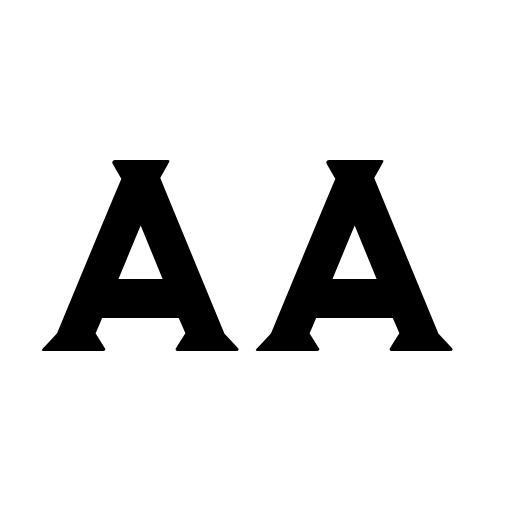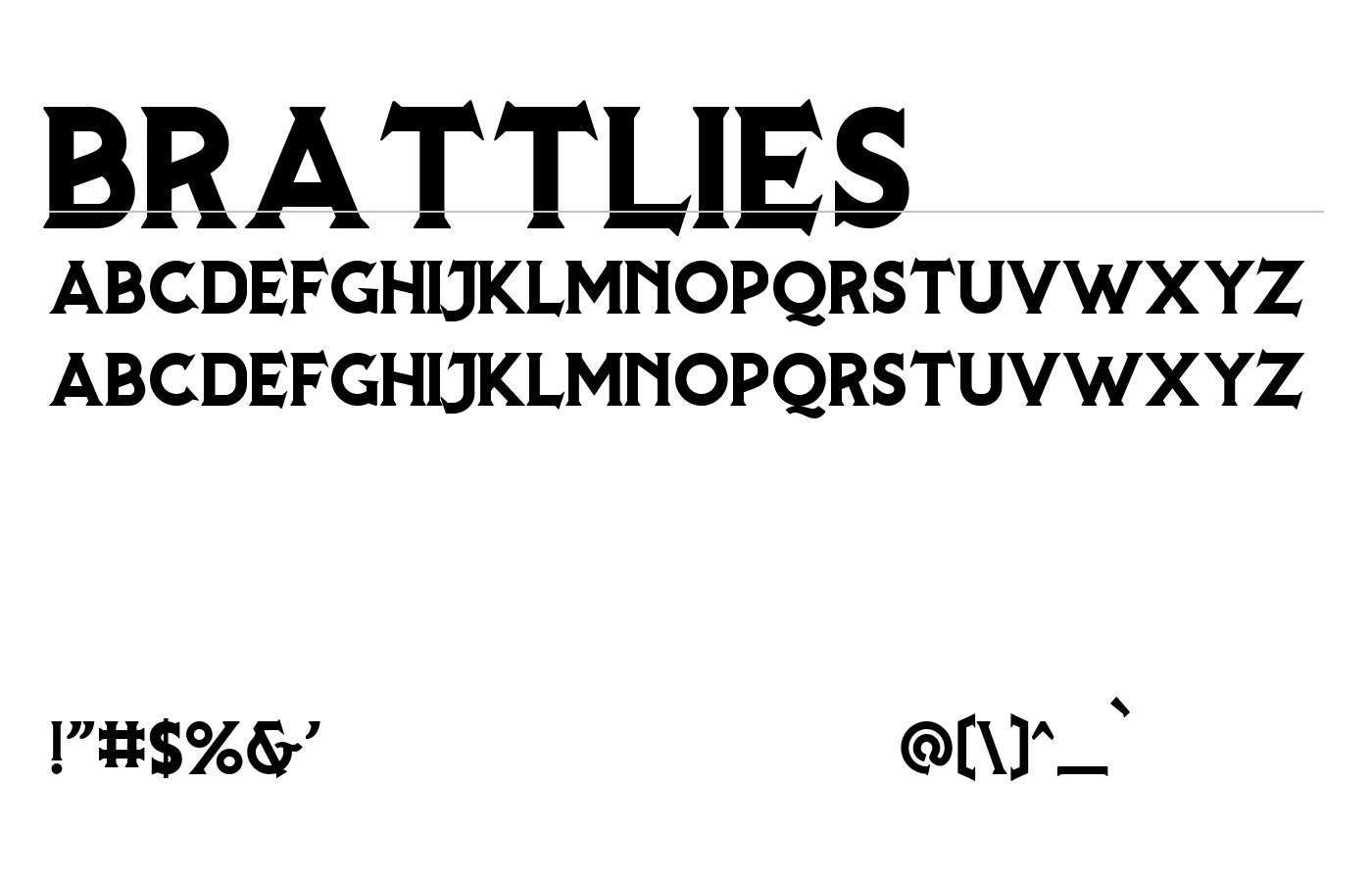
BRATTLIES is a bold, serif display font characterized by its sharp, angular serifs and strong contrast between thick and thin strokes, giving it a dramatic and vintage-inspired feel. The uppercase letterforms feature unique, edgy details with slightly condensed proportions, making it perfect for impactful headlines, logos, and branding that seek a striking, authoritative presence with a touch of old-world charm. This font works well in creative projects where a distinctive, memorable style is desired.
BRATTLIES Font
About BRATTLIES Font